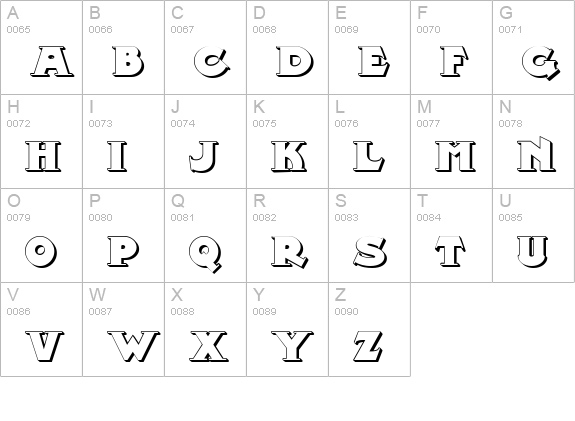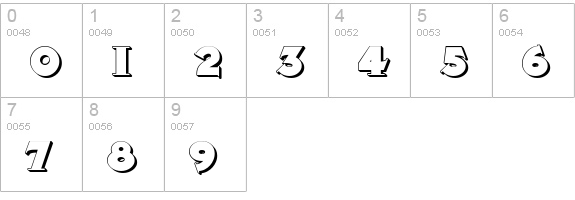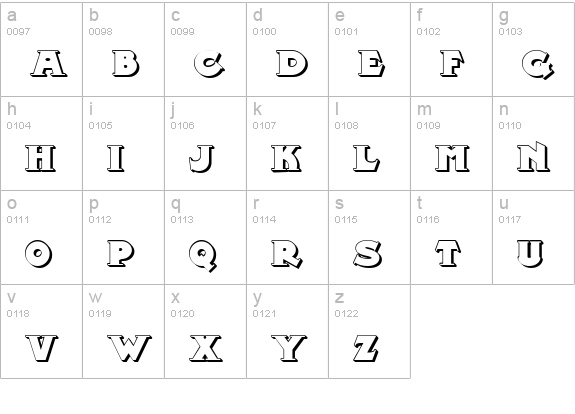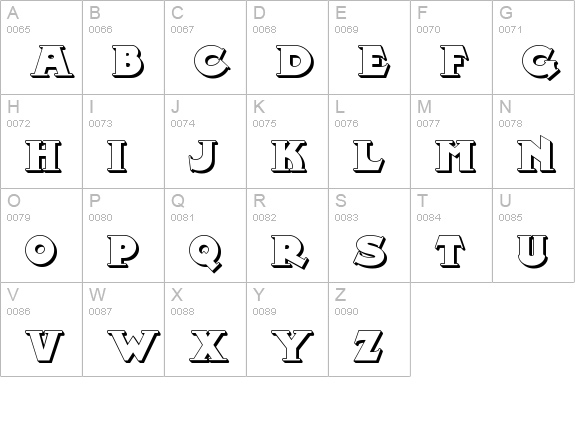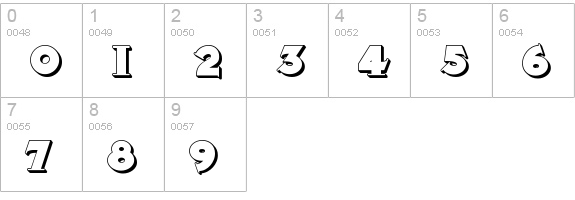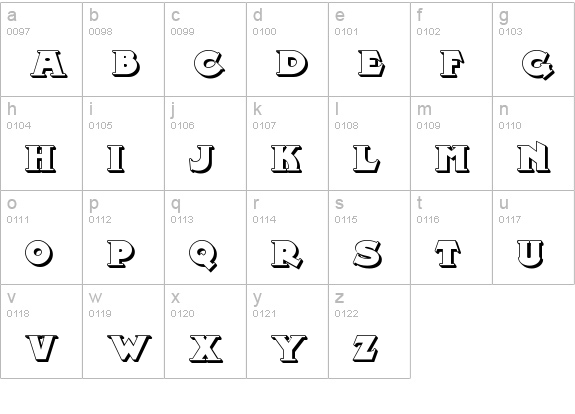
Midland Rail Shadow NF is a captivating and versatile font that exudes vintage charm and sophistication. With its elegant serif letterforms and subtle shadow effect, this font is perfect for adding a touch of old-world elegance to your design projects. Whether you're working on branding, invitations, posters, or any other creative endeavor, Midland Rail Shadow NF will surely make a statement. And the best part? Midland Rail Shadow NF is completely free to download at FontsMarket.com. So you can add this unique and stylish font to your collection without breaking the bank. Don't miss out on the opportunity to elevate your designs with Midland Rail Shadow NF today!